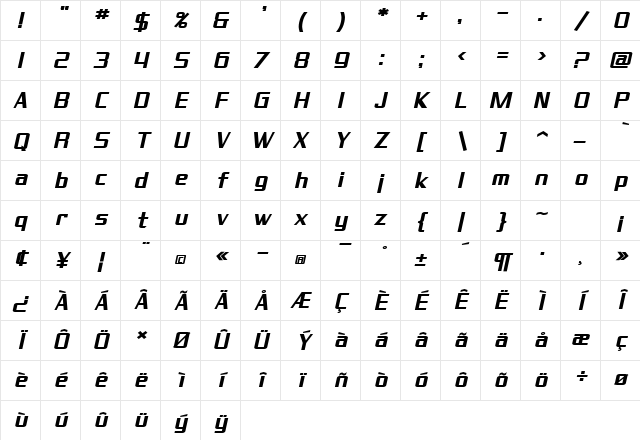
SF Theramin Gothic Bold Oblique
Style: Bold Oblique
SF Theramin Gothic Family
Complete SF Theramin Gothic Bold Oblique glyph index. Displaying only characters natively supported by SF Theramin Gothic Bold Oblique font.
Design Context for SF Theramin Gothic
SF Theramin Gothic takes a clean, functional approach - its unadorned letterforms prioritise legibility and work reliably across screen and print environments. The slanted form adds forward momentum and visual energy. Its bold stroke weight gives it real presence on the page.